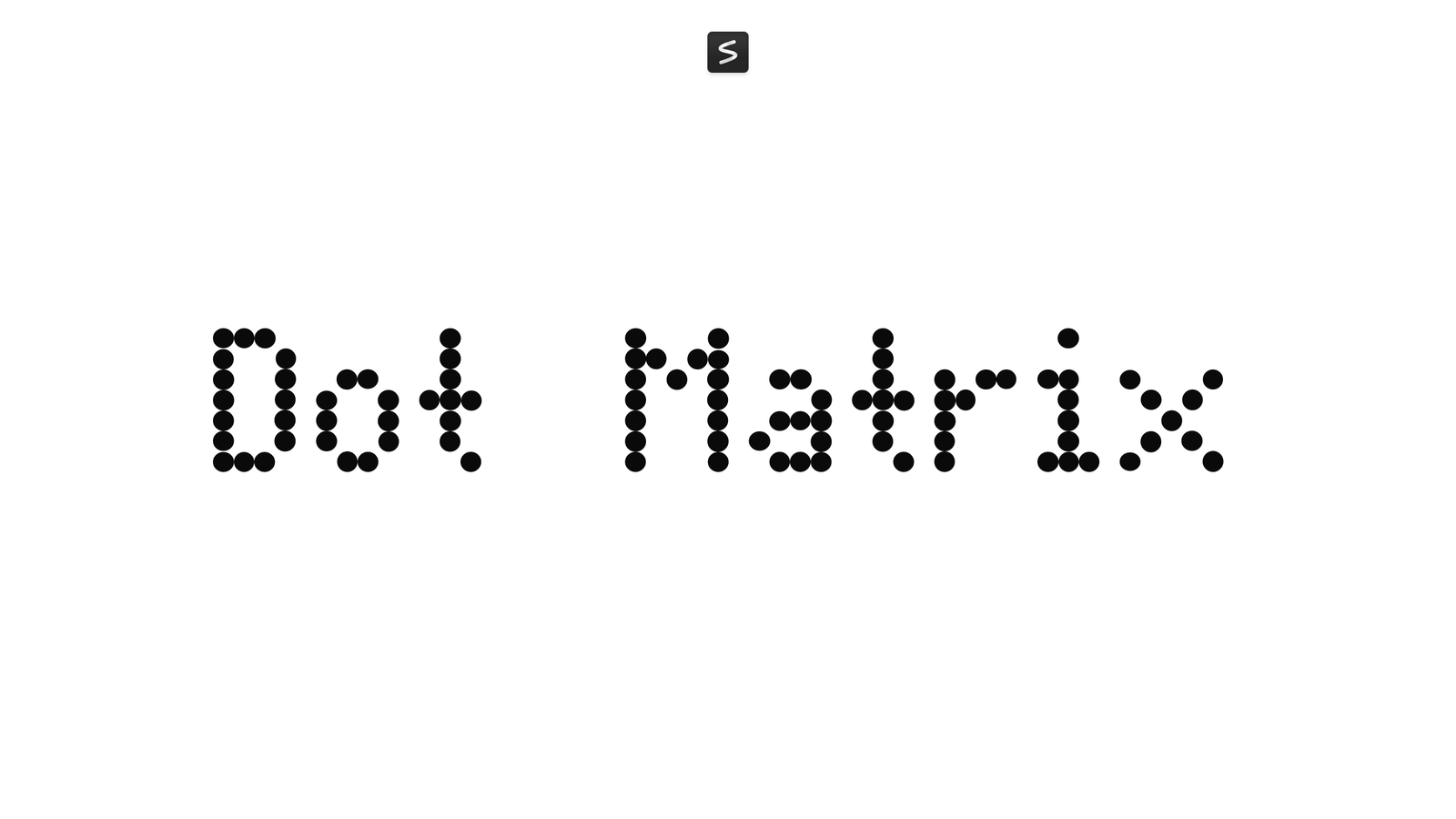
Dot Matrix, designed by Moonbase Press, is a bitmap font that recreates the look of old dot-matrix printer output. Its blocky, pixelated letterforms are instantly recognizable, evoking the aesthetic of 1980s and early 1990s computer printouts and digital displays.
The font has a distinctly retro character, with each letter built from a grid of small dots and dashes that give it an authentic mechanical feel. It reads clearly at small sizes and becomes more visually interesting when enlarged, making it suitable for both functional and decorative uses.
Dot Matrix works well for projects that need a nostalgic computer or tech-forward look: retro posters, vintage-style branding, game interfaces, zines, or any design aiming to evoke early personal computer culture. If you want the genuine appearance of aging printer paper and early digital typography, this font delivers that feel directly.